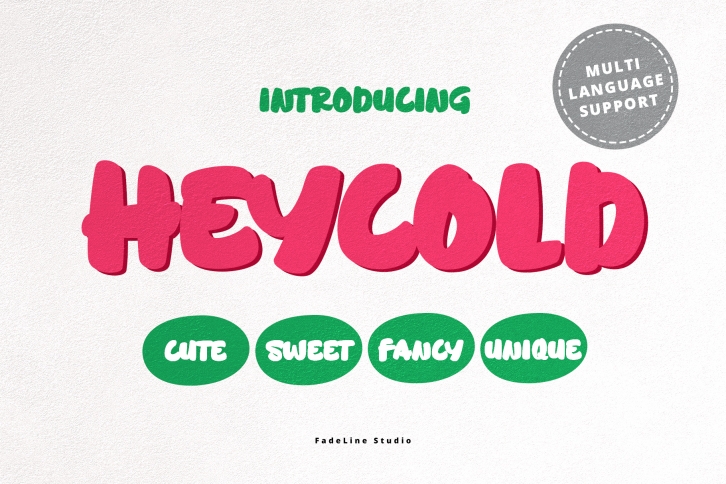
HEYCOLD CUTE is a beautiful font that was designed by FadeLine Studio. It's a great choice for designers and creatives who need such a font. It was released on November 21, 2019 and the file size is 9.5 MB. HEYCOLD CUTE may give a more youthful, expressive and casual look to your project. It is a very beautiful, refined, elegant, and high-quality font.